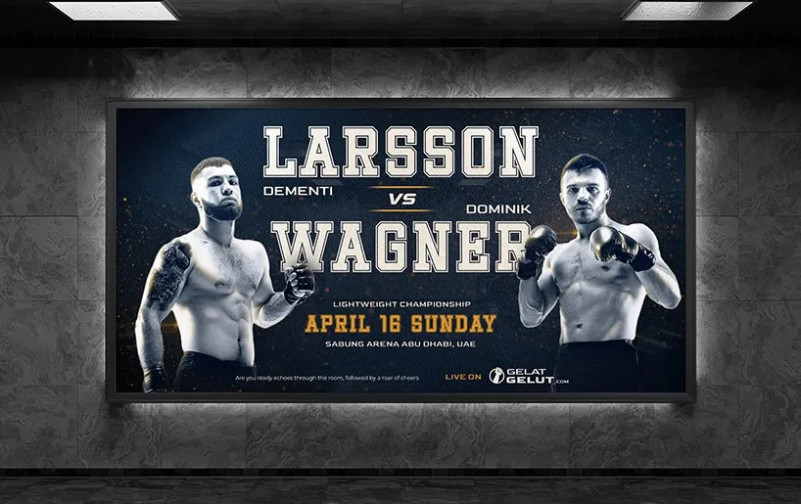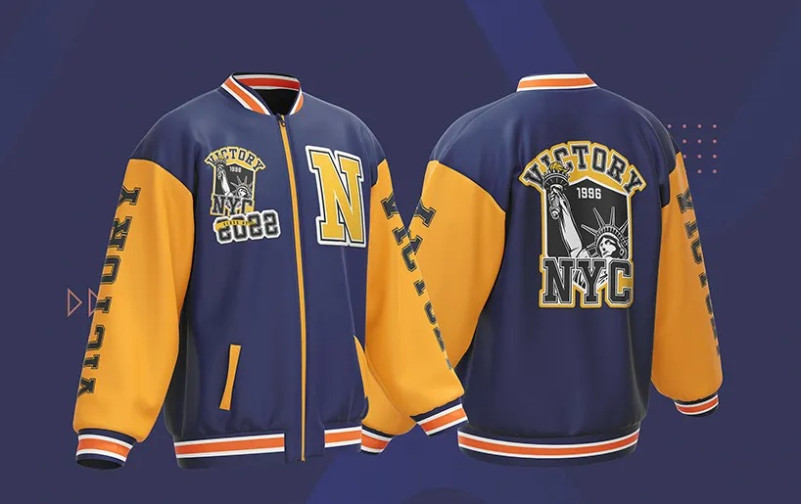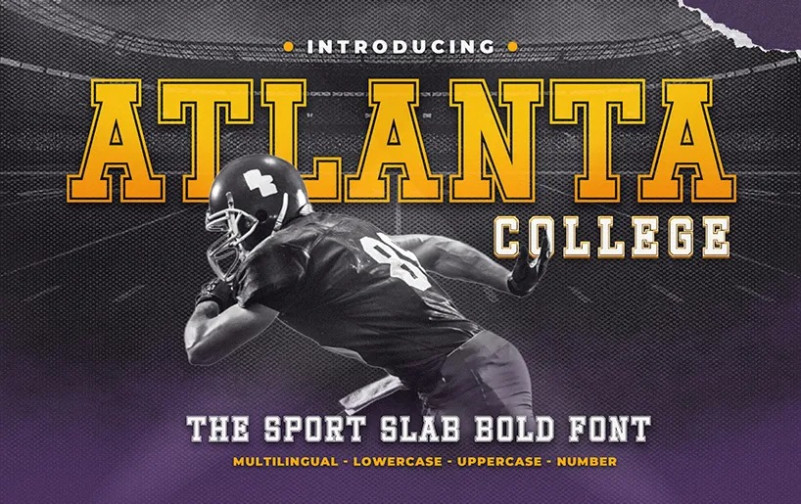
Atlanta College Font
Atlanta College Display Font is a display font commonly used for college assets, especially American College. We can use this font for designing college football team jerseys, cheerleader uniforms, or the university logo.
This font gives us a Vintage feels for our designs. So if you need this font to make some vintage banner, team logo, or a product, this font is the font that you’ll need. Not just for college logos, you can use this font for other purposes like sports posters or varsity jackets.
Atlanta College comes in various forms. From uppercase to lower case, multilingual supports, punctuations, and numbers. This font becomes special because it is very versatile on many occasions.
The vintage but not so old design that the font had makes it looks beautiful. With the multilingual support, you can make a unique design by combining a regular letter with the multilingual to create font combos that will look attractive. The font will still look good even without a logo or images.
Just our two cents, this font is not good enough for branding due to the generic serif style. If you want to make a logo based on texts using this font, it could make people not recognize your logo carefully and not have an impact on them because it felt mediocre for someone to take a look. The font will look better for writing a quote, a match card, or on clothes.
This font usually could appear and be used in products like posters, banners, logos, clothing, vintage movie title, and sporting events like American Football and Major League Baseball. In the image previews, we used it in a sporting event such as American football due to the font matching the theme of the sport.